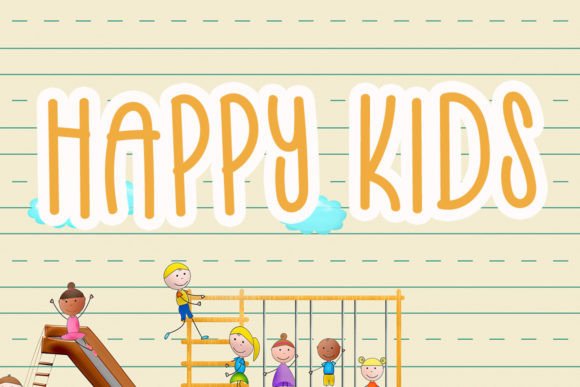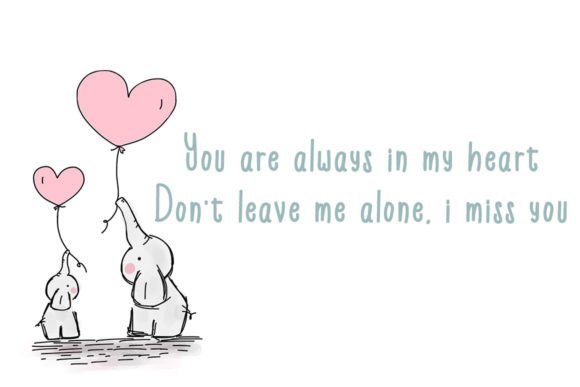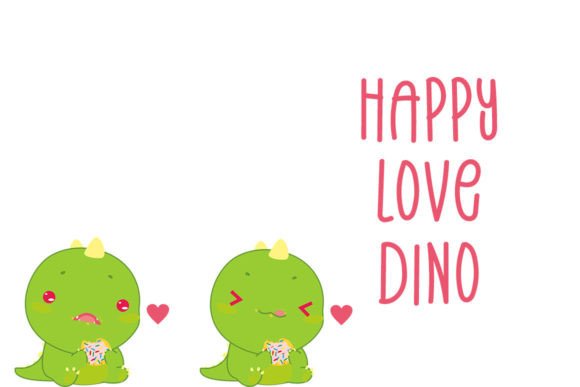
Unleash the Joy of Handwritten Style: Bag to School Font
Do you remember the excitement of heading back to school as a kid? The thrill of picking out new pencils, notebooks, and backpacks? For many of us, that sense of anticipation and joy never truly fades. As designers, we’re always on the lookout for the perfect font to evoke those same feelings in our work. That’s where the Bag to School Font comes in – a beautiful and sweet handwritten font that’s sure to add a touch of whimsy to any project.
This elegant font is perfect for both formal and informal designs, making it a valuable addition to any designer’s toolkit. With its fresh, clean, and joyful aesthetic, the Bag to School Font is sure to bring a smile to the faces of your audience.
Bag to School Font Key Features
- Font Family: Bag to School Font is a unique, playful, and educational font designed specifically for back-to-school and educational materials.
- Character Set: Includes a wide range of characters, including uppercase and lowercase letters, numbers, and punctuation marks, as well as special educational symbols.
- Unique Characteristics: The font features a fun, colorful design with a bag and school theme, making it perfect for educational materials, such as worksheets, posters, and brochures.
Bag to School Font Review
Overall, I think Bag to School Font is a cute and playful typeface that can add a fun touch to your designs. ✨ Here are some things that work well:
- Quirky and youthful vibe that’s perfect for kids’ educational materials, stationery, or even school-themed merchandise.
- Wide range of character sets and language support, making it a versatile option for various design projects.
- Smooth and rounded lines give it a friendly, approachable feel that’s easy on the eyes.
- ⚠️ Limited legibility in small font sizes, which can make it difficult to read in certain contexts.
- ⚠️ Some users might find it too childlike or immature for more formal or professional designs.
- ⚠️ The font’s rounded lines can sometimes make it look less sophisticated or elegant compared to other typefaces.
Overall, I’d say Bag to School Font is a fun and engaging typeface that’s perfect for the right project. While it has its limitations, it’s a great option for designs that require a lighthearted, playful touch.
The Bag to School Font is ideal for back-to-school designs, educational materials, and kids’ party invitations.
For best results, use the font in conjunction with bold colors and playful graphics.